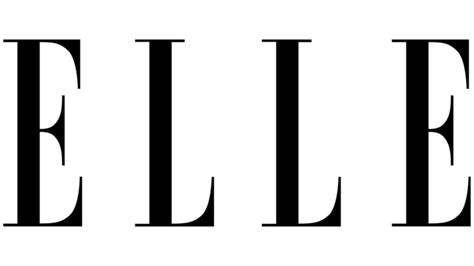
Elle Magazine Font: Free Download Options
Hey design lovers! Ever scrolled through Elle Magazine and found yourself totally mesmerized by the sleek, sophisticated typography? Yeah, me too! That Elle font is seriously iconic, isn’t it? It just screams chic, fashion-forward, and oh-so-stylish . If you’re like me and have been on the hunt for that perfect Elle magazine font to bring a touch of Parisian elegance to your own projects, you’re in the right place, guys. Let’s dive into the world of free font downloads and see if we can snag something that gives us that Elle vibe without breaking the bank. We’re talking about fonts that ooze sophistication, have that distinct fashion-editorial feel, and can elevate everything from your blog headers to your social media graphics. Finding the exact font used by a major publication can be tricky, as they often commission custom typefaces or use licensed versions. But don’t worry, we’ll explore some amazing free alternatives that capture the essence of that signature Elle look. Get ready to give your designs that high-fashion edge!
Unpacking the Elle Aesthetic: What Makes That Font So Special?
So, what is it about the Elle magazine font that grabs our attention every single time? It’s more than just letters, right? The Elle aesthetic is deeply rooted in a sense of modern luxury and understated glamour. When you look at the Elle masthead or the way headlines are treated within the magazine, you’re seeing a deliberate choice that speaks volumes. Typically, publications like Elle opt for serif fonts that are both classic and contemporary. These fonts often feature delicate, sharp serifs , a balanced x-height (the height of lowercase letters like ‘x’), and a well-proportioned stroke contrast . This contrast, where thick and thin lines vary within the letterforms, adds a sense of refinement and visual interest. Think of it as a subtle dance between boldness and delicacy. The overall feeling is one of elegance, readability, and a touch of authoritative confidence . It’s not a playful font; it’s a font that means business, the business of fashion, beauty, and culture. It needs to be readable at small sizes for body text but also make a statement when used for headlines or logos. The chosen typeface often reflects the magazine’s editorial direction – sophisticated, intelligent, and always on-trend. While Elle itself might use a custom or licensed font, the vibe we’re chasing is this clean, sharp, and undeniably chic style. Understanding these characteristics is key to finding free fonts that can mimic this sophisticated appeal. We want something that feels established, yet fresh, conveying authority and style in equal measure. It’s about that perfect blend of timelessness and modernity that makes the Elle brand so recognizable and aspirational. It’s the kind of font that makes you want to grab a coffee, curl up with the latest issue, and feel completely immersed in the world of high fashion.
The Quest for the Perfect Free Font: Elle-Inspired Alternatives
Alright, let’s get down to business, guys! Finding the exact Elle font for free is like finding a needle in a haystack – it’s rare. Major fashion magazines often use custom typefaces or heavily licensed fonts that aren’t readily available for public download. But , don’t throw in the towel just yet! The good news is that there are a ton of incredible free fonts out there that capture that Elle magazine vibe. We’re talking about fonts that have that sophisticated serif flair, the clean lines, and the overall sense of editorial polish. The key is to look for fonts that share similar characteristics: elegant serifs, good readability, and a modern yet classic feel. Think about fonts with sharp serifs, a moderate contrast between thick and thin strokes, and a balanced structure. These elements combine to create that luxurious and authoritative look that Elle is known for. When you’re browsing free font sites, keep an eye out for categories like ‘Serif’, ‘Classic’, ‘Elegant’, or ‘Editorial’. You might discover gems that, while not identical, evoke the same feeling. Some popular free font families that often come up in these searches include classics like Garamond (though a true Adobe Garamond is often paid, free versions exist), Playfair Display , and Merriweather . These fonts, while having their own distinct personalities, share that timeless elegance and readability. Playfair Display , for instance, is a fantastic free option with strong contrast and sharp serifs, making it a great choice for headlines that need to make a statement. Merriweather offers excellent readability for longer texts, mimicking the practical yet stylish approach of magazine body copy. Don’t be afraid to experiment! Download a few options, try them out in your designs, and see which one best translates that Elle -inspired chic you’re aiming for. Remember, the goal is to capture the essence , not necessarily a pixel-perfect replica.
Top Free Font Picks for That Elle Magazine Feel
Okay, let’s get specific, because I know you’re all eager to get your hands on some stylish fonts! While we might not find the exact Elle font for free, we can definitely find some seriously good stand-ins that nail that high-fashion editorial vibe. My top recommendations focus on elegance, readability, and that subtle hint of luxury. First up, we have Playfair Display . This is a Google Font, which means it’s totally free to use for both personal and commercial projects. Playfair Display is a transitional serif font, meaning it bridges the gap between old-style and modern serifs. It has high contrast between thick and thin strokes, sharp serifs, and an elegant flow that makes it perfect for headlines, subheadings, and even short blocks of text where you want to make an impact. It absolutely screams sophisticated publication. Another fantastic free option is Merriweather . Also a Google Font, Merriweather is designed specifically for screens, making it incredibly readable, but it translates beautifully to print too. It’s a serif font with a slightly heavier feel than Playfair Display, giving it a grounded yet refined presence. It’s great for body text in articles or longer captions where clarity is key, but it can also be used for display purposes if you want a slightly more subdued elegance. For something with a bit more vintage flair but still incredibly chic, check out Lora . This is another Google Font that offers a softer, more contemporary take on serif typography. It’s very versatile and has a lovely, flowing quality that can add a touch of warmth to your designs while maintaining that essential sophistication. And if you’re looking for something super clean and modern with a nod to classic proportions, Libre Baskerville is a superb choice. Based on the classic Baskerville typeface, this free version offers excellent readability and a timeless appeal that’s hard to beat. It’s perfect for those who want that established, authoritative look without feeling stuffy. Remember to play around with font weights (light, regular, bold) and sizes to get the best effect. Combining one of these display fonts for headlines with a more readable serif or even a clean sans-serif for body copy can create a professional and polished look, just like you see in your favorite fashion magazines!
Where to Find These Fabulous Free Fonts
Tips for Using Elle-Inspired Fonts Effectively in Your Designs
So, you’ve downloaded some gorgeous, Elle-esque fonts. Awesome! But how do you use them without looking like you just slapped a fancy font on a boring design? It’s all about strategy, guys. The key to using these elegant fonts effectively is to treat them with the respect they deserve – think subtle sophistication rather than loud extravagance. First off, hierarchy is your best friend . Just like in a magazine, you need to guide the reader’s eye. Use your chosen display font (like Playfair Display) for your main headlines and titles. Make it stand out, but don’t make it overwhelmingly large. Then, use a complementary font for subheadings and body text. This could be a lighter weight of the same font family or a clean, simple sans-serif font (like Lato, Open Sans, or Montserrat) for maximum readability. This contrast creates visual interest and ensures your content is actually readable. Secondly, don’t overdo it . A common mistake is using too many different fonts or using a fancy font for every single element. Stick to a maximum of two or three fonts for your entire design. Let your main Elle-inspired font shine in the key areas, and keep the rest clean and functional. Think about negative space – Elle is famous for its clean layouts and generous use of white space. Don’t cram your text together. Give your beautiful fonts room to breathe! This makes your design feel more premium and less cluttered. Consider the context . Is this for a fashion blog? A wedding invitation? A personal branding kit? Tailor your font choices and their application to the specific project. An elegant serif font works wonders for fashion and beauty, but might feel a bit too formal for a tech startup. Finally, pay attention to alignment and spacing . Ensure your text is aligned consistently (left-aligned is usually safest for body text) and that the spacing between lines (leading) and letters (kerning) is comfortable for the eye. Experiment with different weights and sizes within a font family to add subtle variations and emphasis without introducing new fonts. By following these tips, you’ll be well on your way to creating designs that feel just as polished and aspirational as the pages of Elle magazine.
Beyond the Font: Creating a Complete Elle-Inspired Look
Alright, we’ve talked a lot about fonts, and that’s super important, right? But if you really want to capture that Elle magazine magic, you gotta think beyond just the typeface. Creating a complete Elle -inspired look involves a cohesive blend of typography, color palette, imagery, and layout. So, let’s break it down, guys! First, color palette . Elle often uses a sophisticated, sometimes minimalist, color scheme. Think clean whites, soft neutrals (like creams and grays), blacks, and occasional pops of bold color – maybe a rich red, a deep teal, or a vibrant fuchsia, used sparingly for emphasis. Avoid overly bright or chaotic color combinations. The goal is chic and curated. Second, imagery . Fashion magazines are visual powerhouses. Elle typically features high-quality, professional photography with a focus on fashion, beauty, and aspirational lifestyles. Your images should be sharp, well-composed, and align with the sophisticated, modern, and sometimes artistic vibe of the brand. Consider the style of photography – is it editorial, minimalist, or bold? Match it to your overall aesthetic. Third, layout and white space . This is HUGE. Elle ’s layouts are famously clean, organized, and uncluttered. They use generous amounts of white space (or negative space) to let the content and images breathe. This makes the magazine feel luxurious and easy to read. Avoid jamming too much information onto one page. Embrace a minimalist approach to your layout, with clear grids and logical flow. Your chosen Elle -inspired font will work much better when given room to shine in a well-structured layout. Fourth, graphic elements . Keep these minimal and refined. Think subtle lines, elegant borders, or perhaps a refined icon if necessary. Avoid overly decorative or distracting elements. The focus should always be on the content and the overall aesthetic. Finally, tone of voice . Even in your writing, aim for a sophisticated, informed, and confident tone. Use language that is articulate and engaging, reflecting the intelligent readership of a magazine like Elle . By integrating these elements – a refined color palette, high-quality imagery, spacious layouts, minimalist graphics, and a sophisticated tone – alongside your chosen Elle -inspired fonts, you’ll be able to create a truly cohesive and impactful design that channels that unmistakable Elle magazine chic. It’s about the whole package, you know?